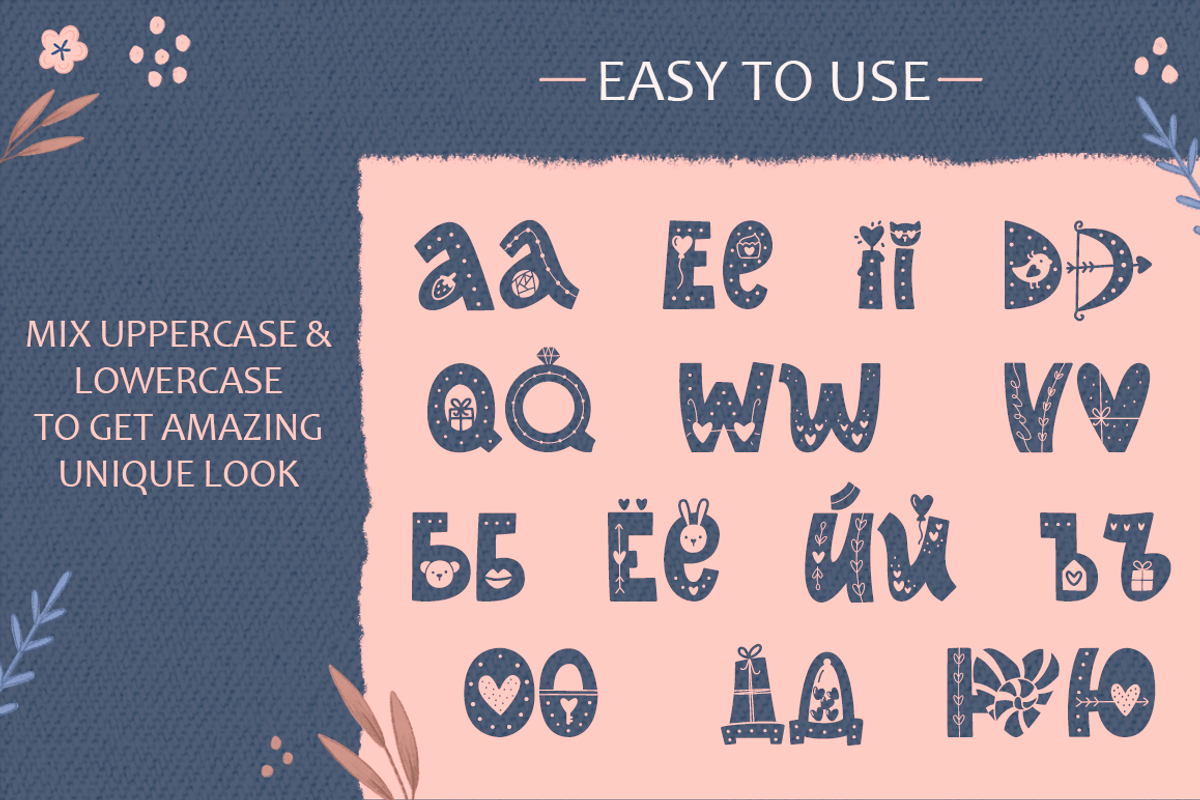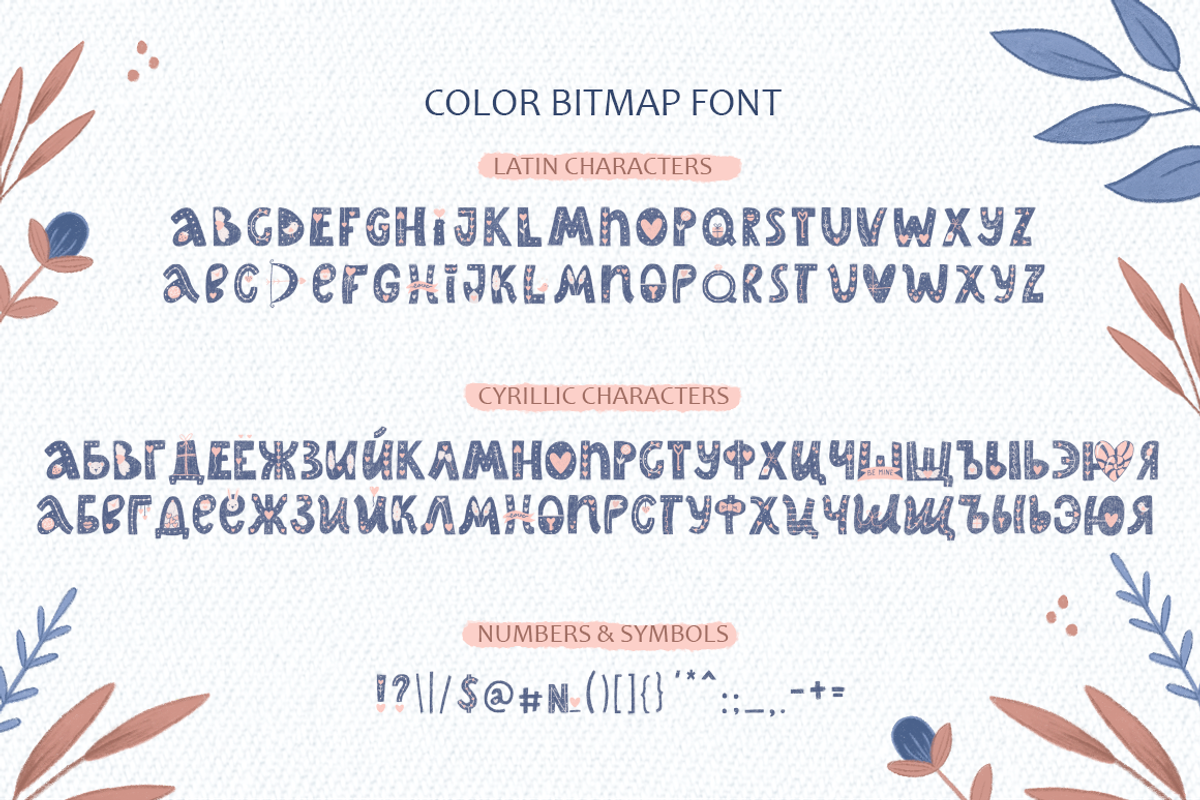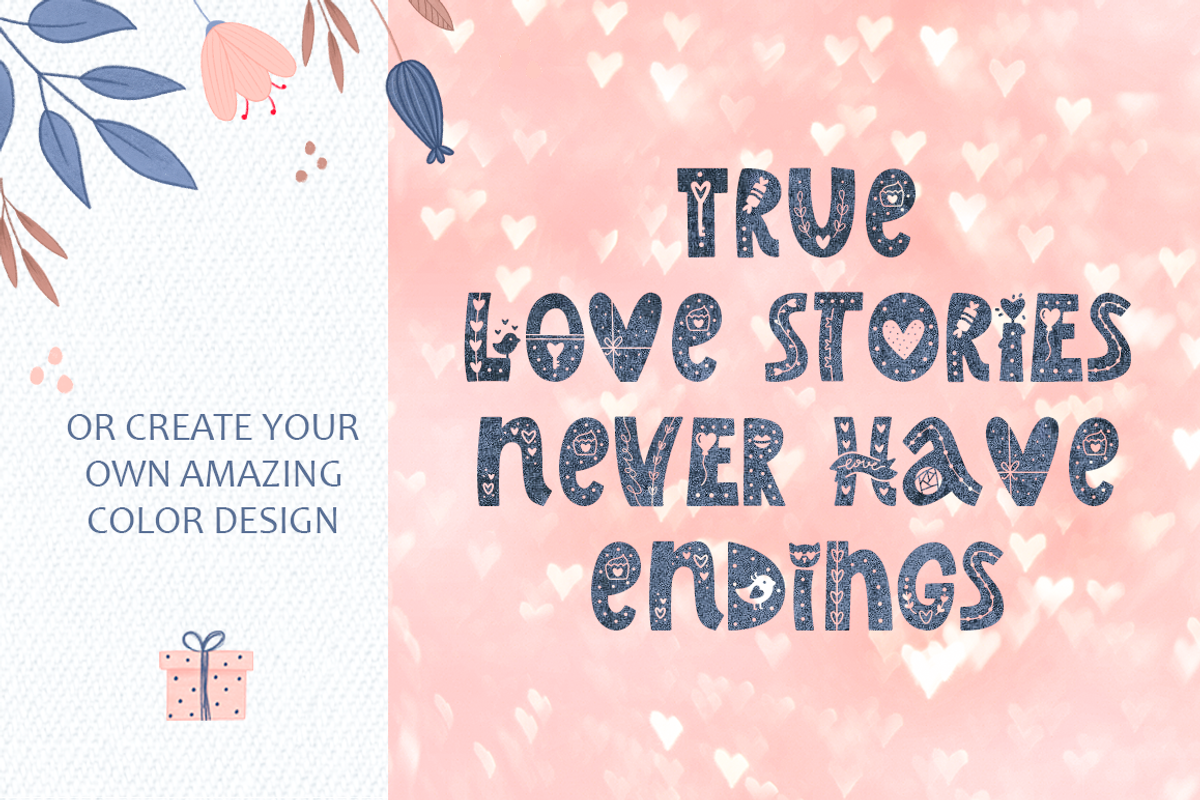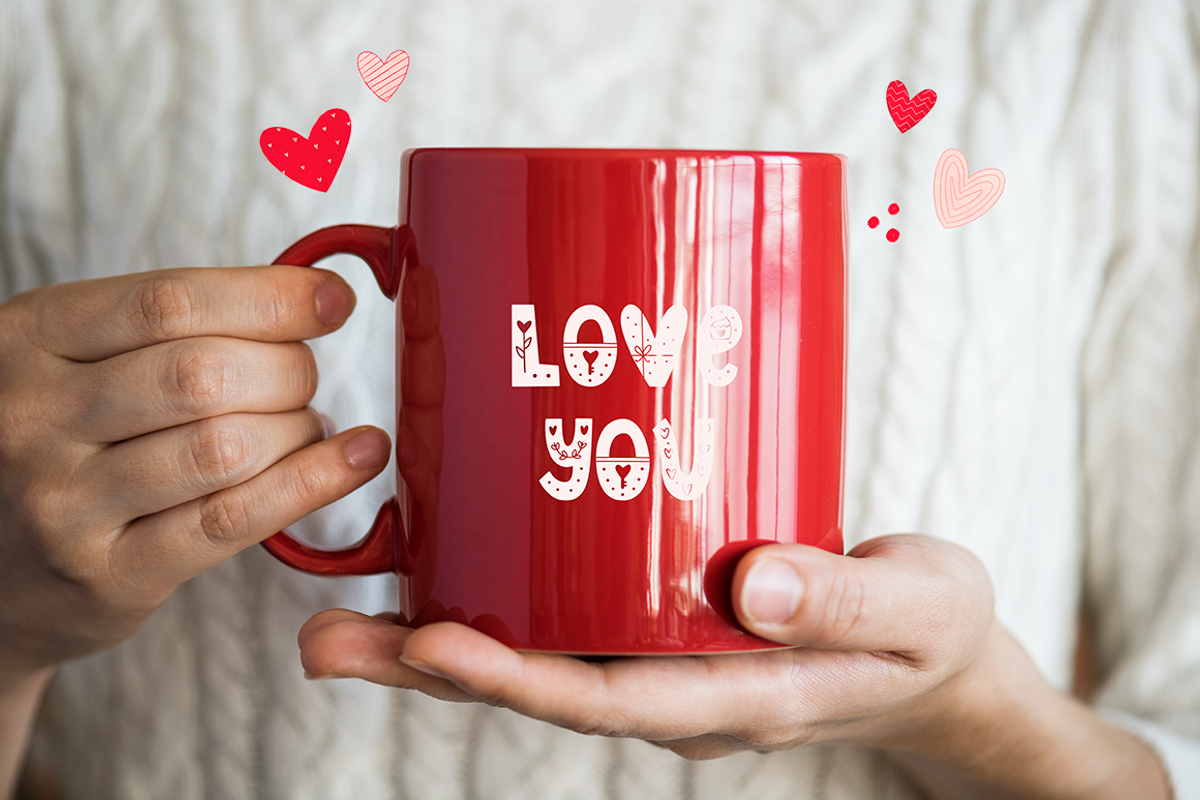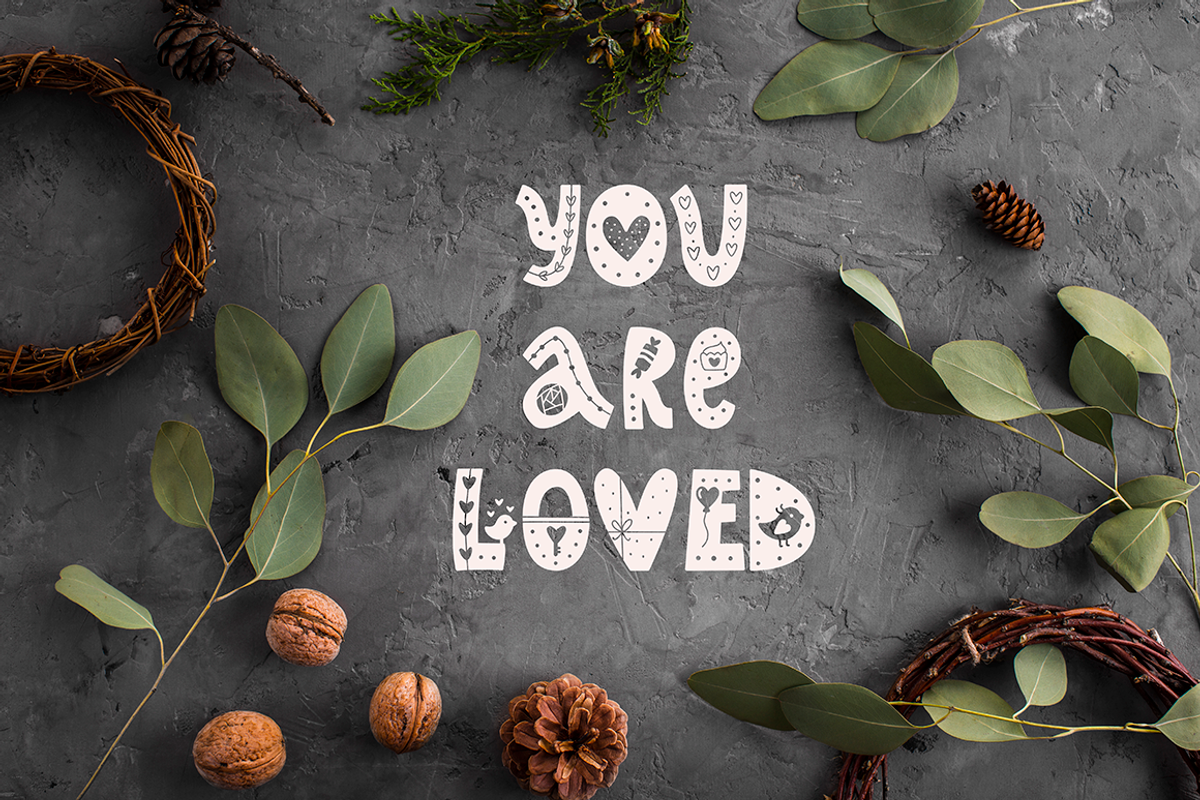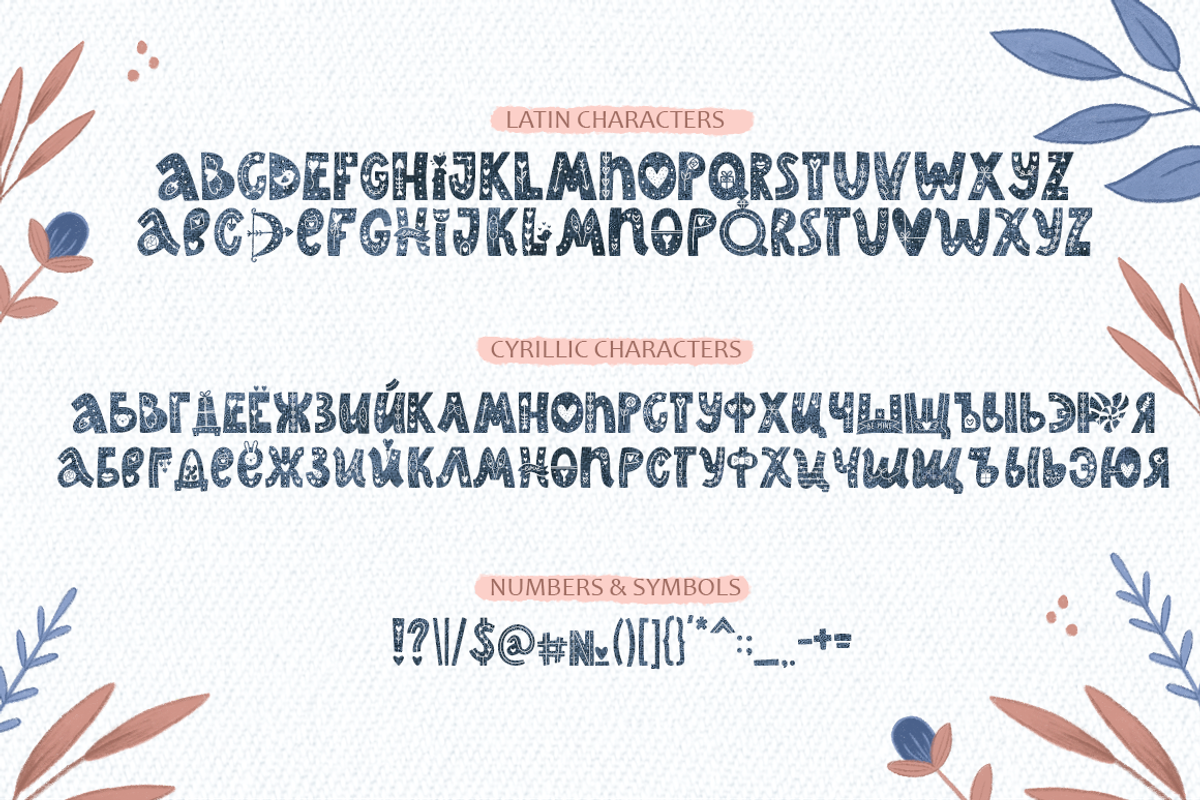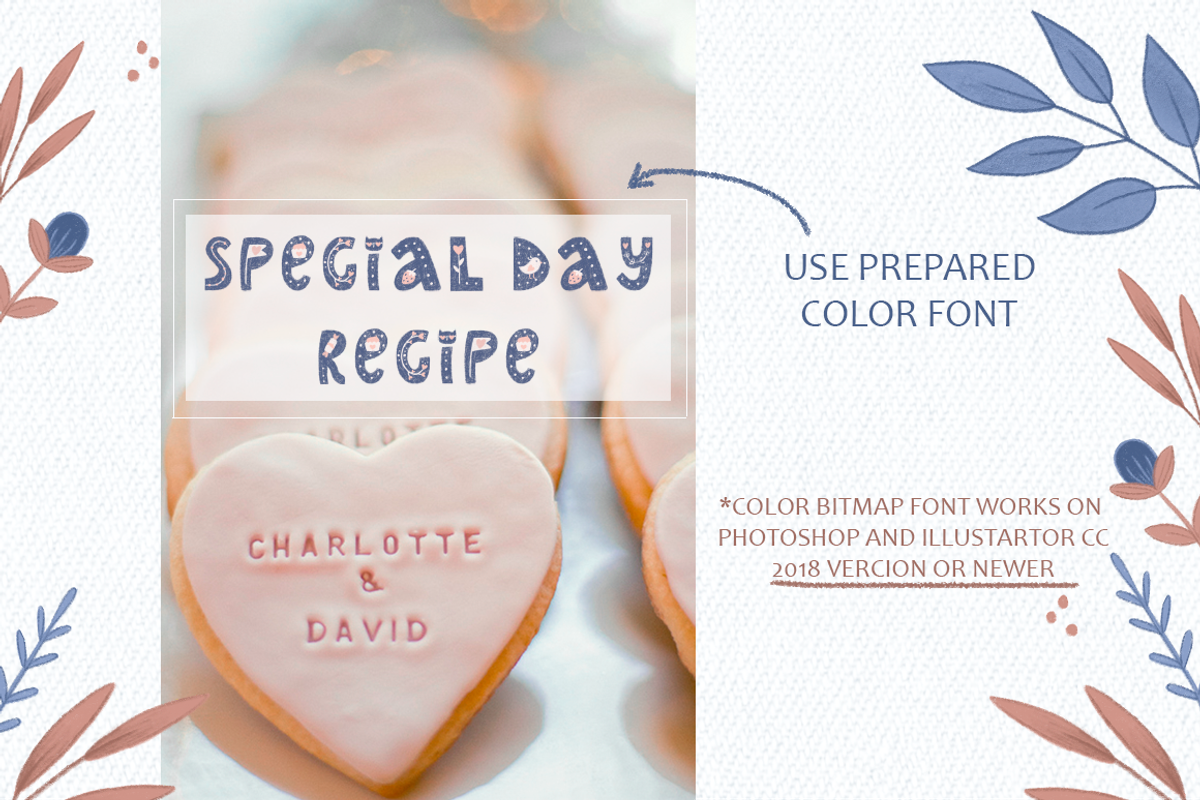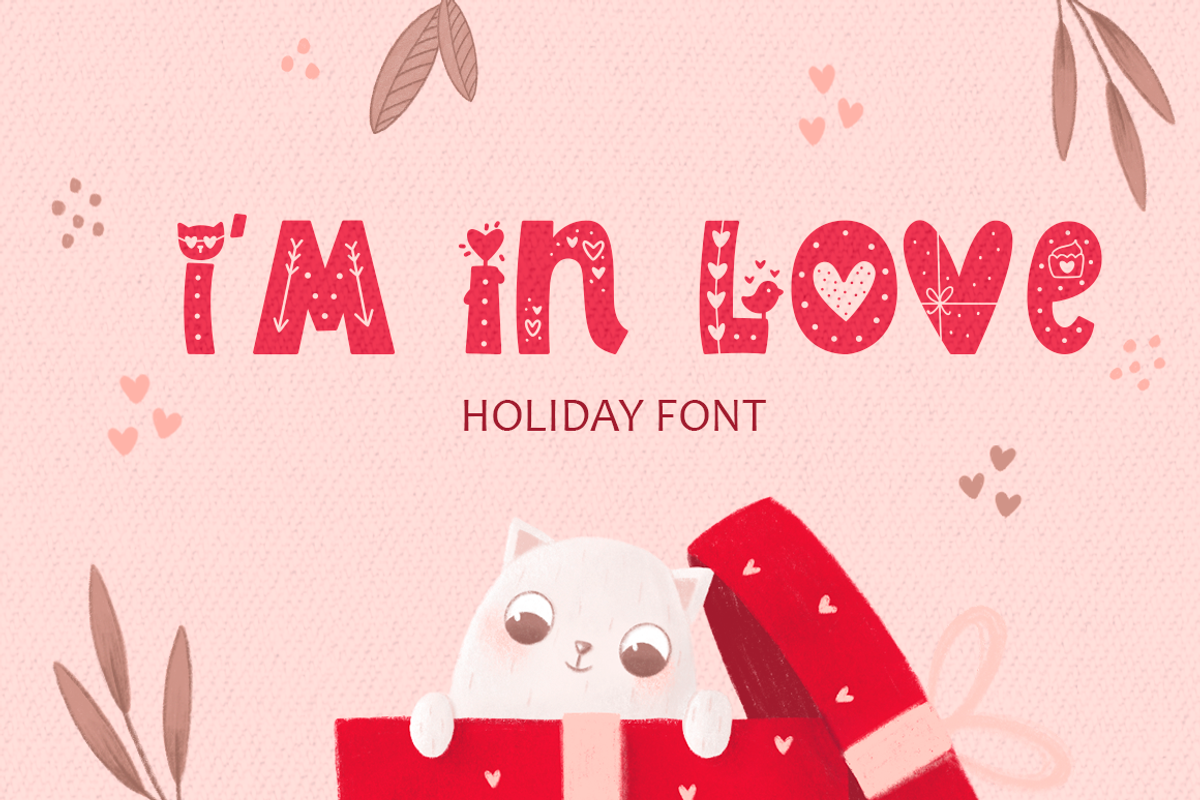
I’m In Love Font • Valentine's Font
I Am In Love Font is stylish display font about love inspired by scandinavian vibes and holiday feel. This font is perfect for decorating the holiday, for children's products, wedding invitations, posters, greeting cards and much more!
Latin set A-Z in 2 alternatives, you can mixed it to create unique design
Cyrillic set А-Я also in 2 variations
Color latin set A-Z in 2 alternatives
Color Cyrillic set А-Я also in 2 variations
Color numerals & punctuation